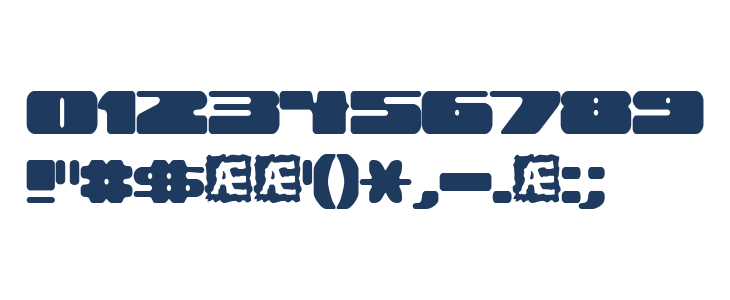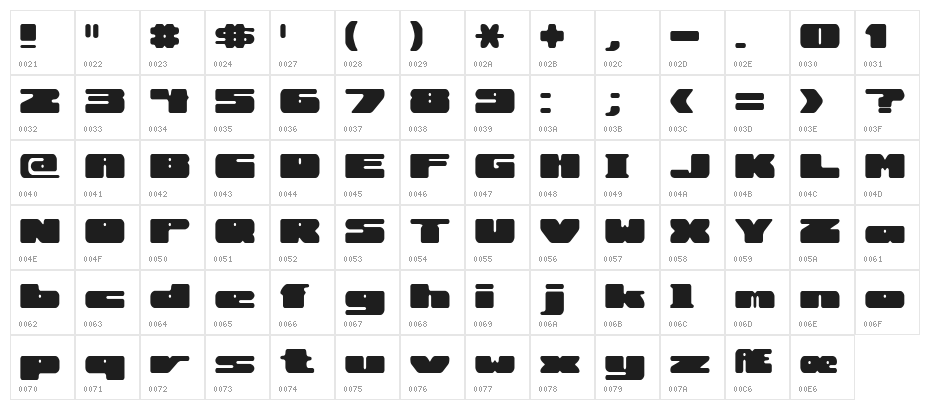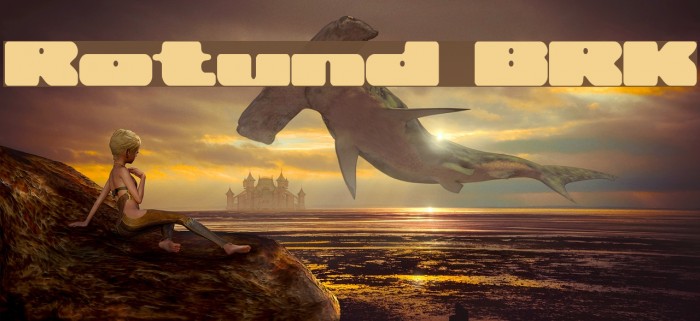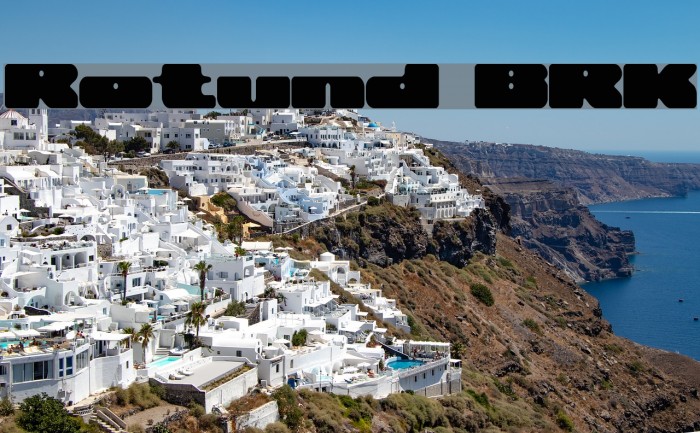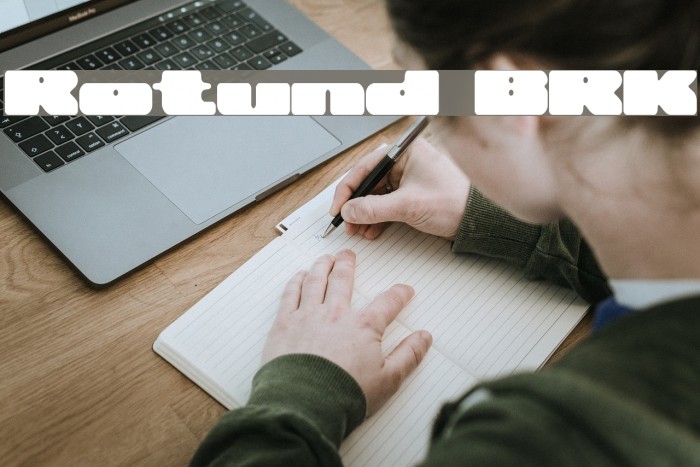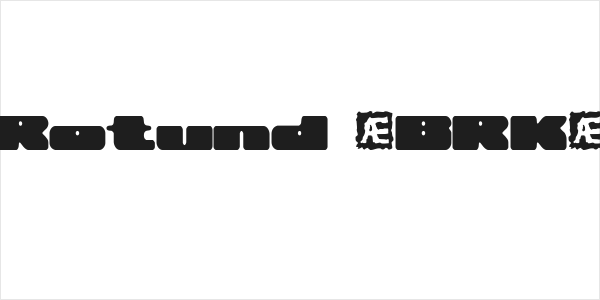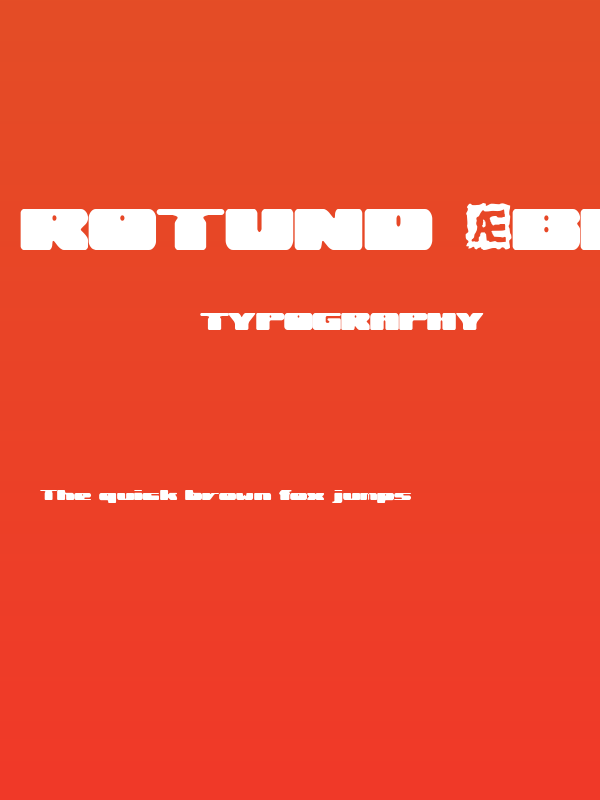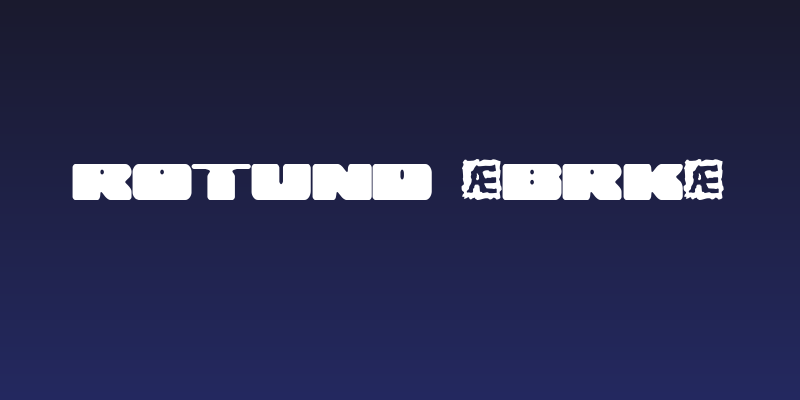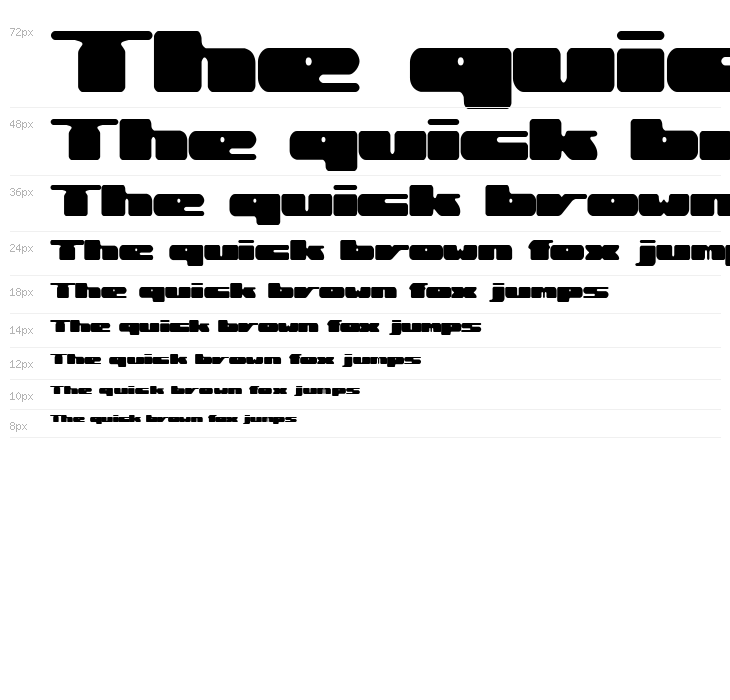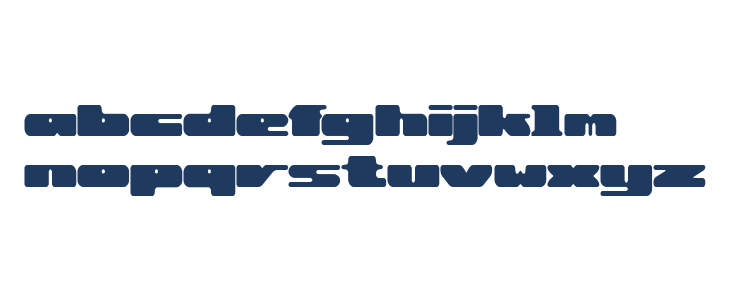
Rotund [BRK] Font
Rotund [BRK] Description
This font features a bold and rounded design with a strong presence. The characters are uniformly thick, giving it a robust and solid appearance. The rounded edges soften the overall look, making it approachable yet impactful. The uppercase and lowercase letters maintain a consistent style, with the lowercase being slightly more compact. Numbers and special characters follow the same bold and rounded aesthetic, ensuring uniformity across all glyphs. This font's unique style makes it stand out, ideal for projects that require a strong visual impact.
| Proposed Projects | Ideal for logos, posters, and headlines where a strong visual impact is needed. |